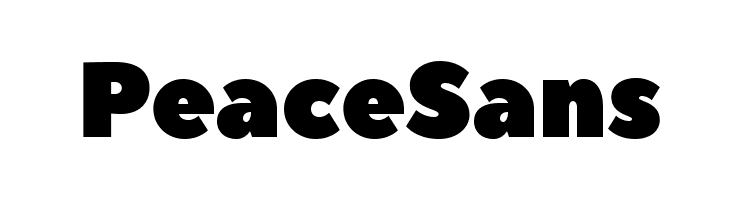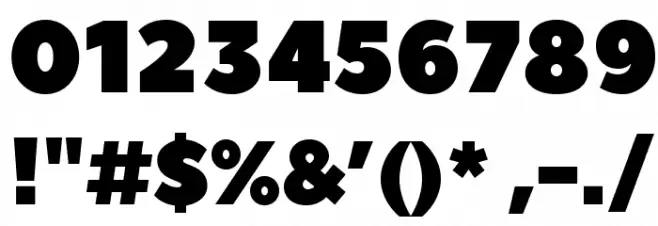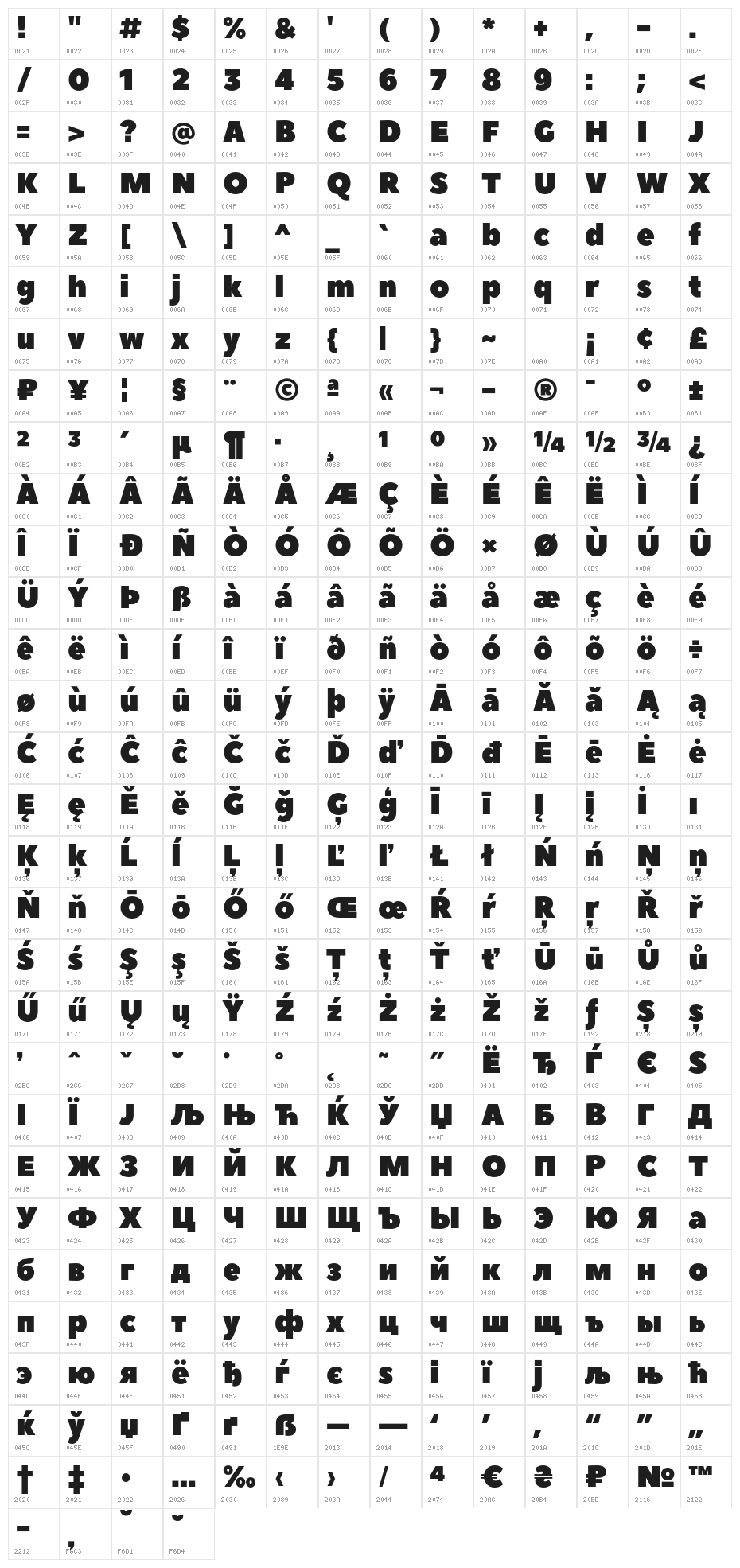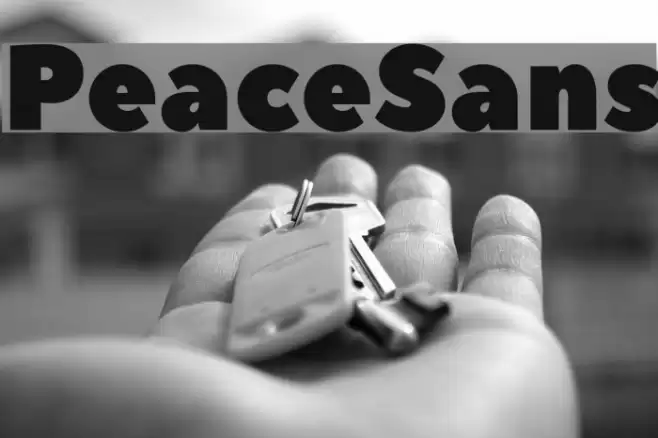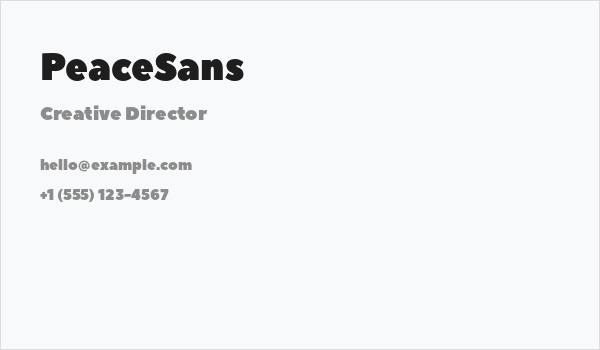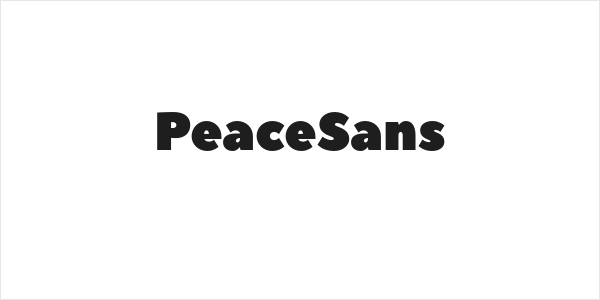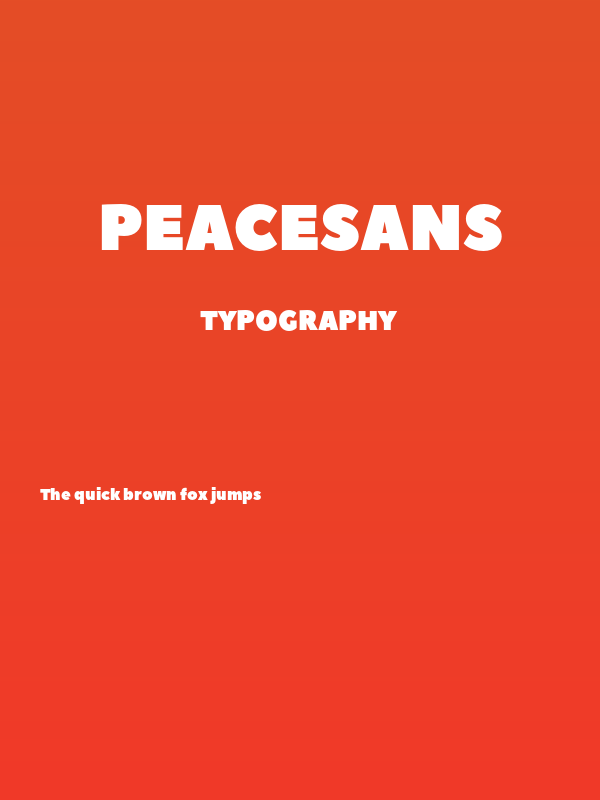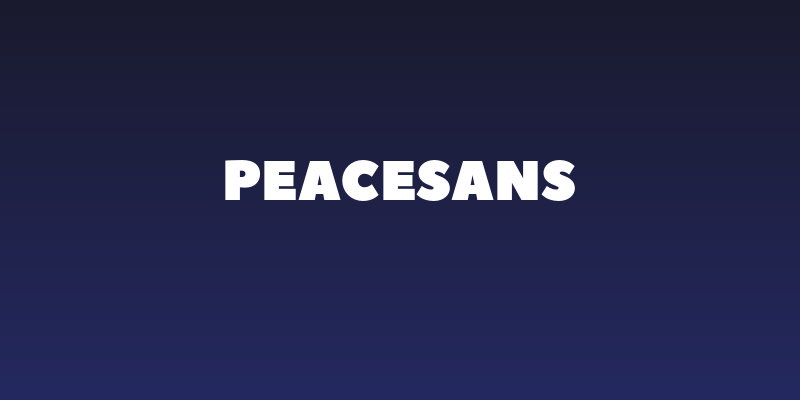
PeaceSans Font
PeaceSans Description
This font features bold, rounded characters that exude a strong and confident presence. The uppercase letters are particularly striking, with a uniform thickness that enhances readability and impact. The lowercase letters maintain the same boldness, creating a cohesive look across different text sizes. Numbers and special characters are equally robust, ensuring consistency in design. The overall appearance is modern and clean, making it suitable for a variety of applications where clarity and emphasis are desired.